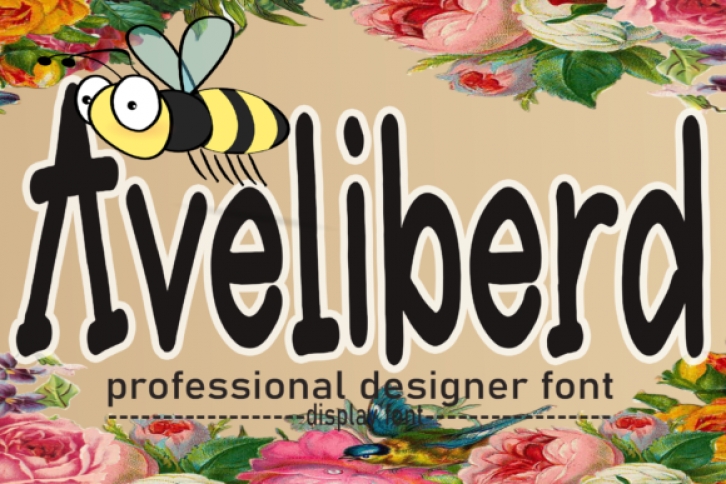
Aveliberd is a unique and interesting display font. It can easily be matched to an incredibly large set of projects, so add it to your creative ideas and notice how it makes them stand out!